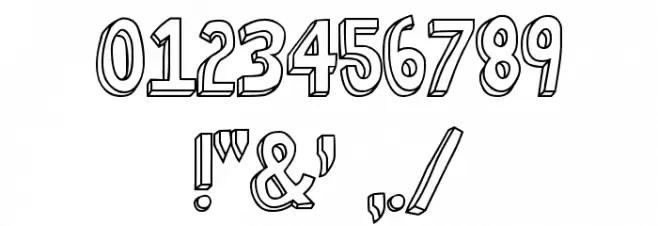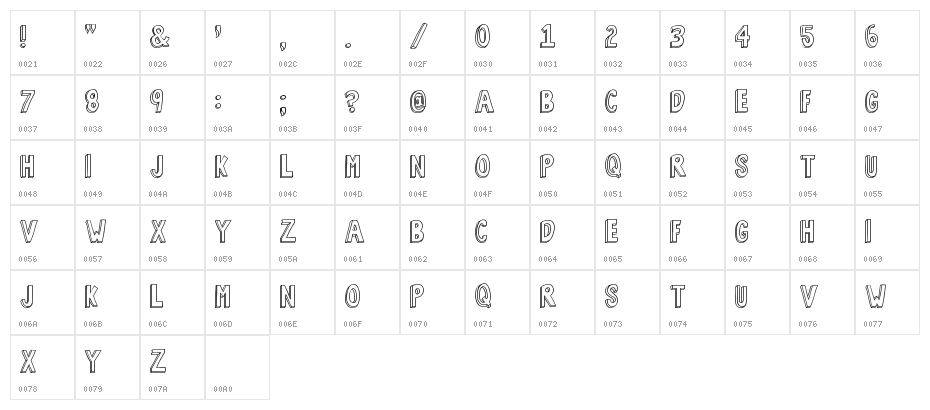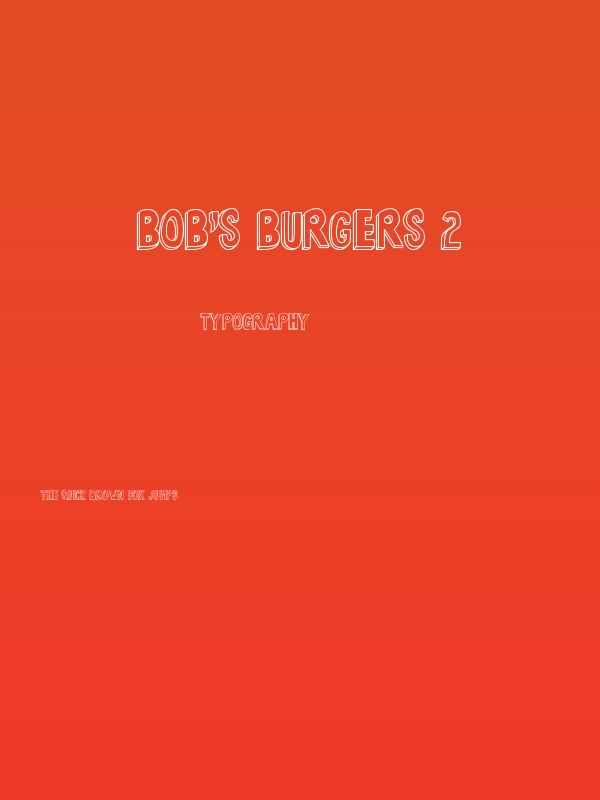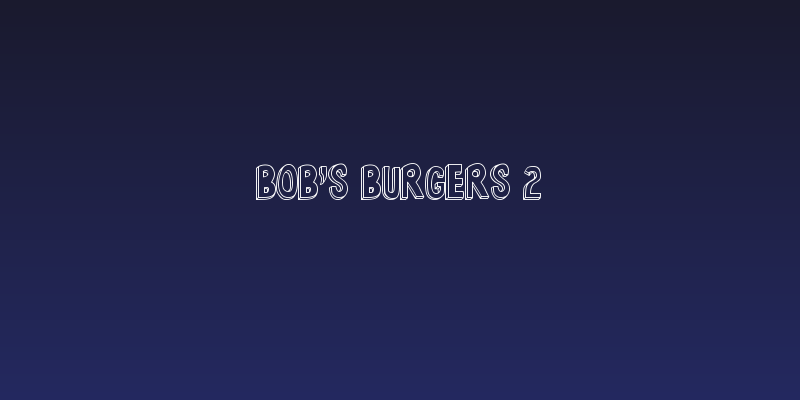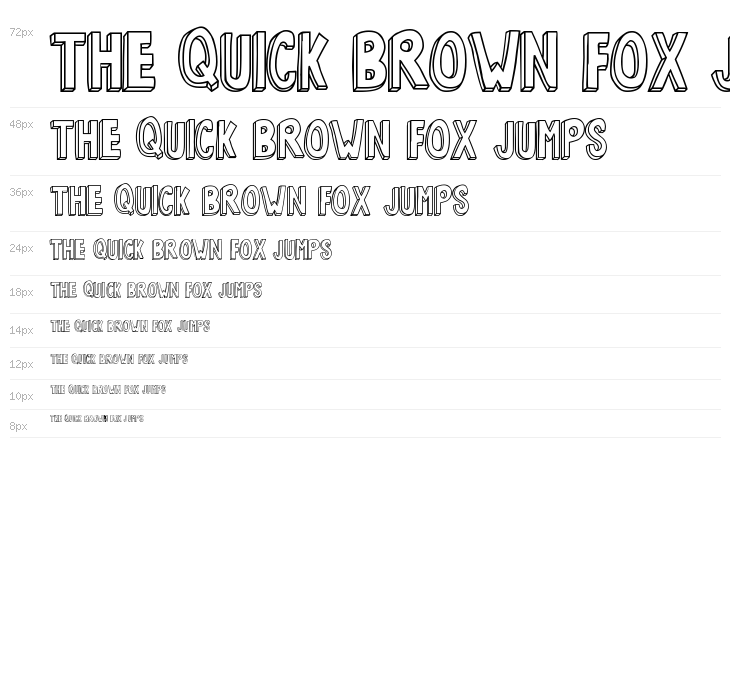
Bob's Burgers 2 Font
Bob's Burgers 2 Description
This font features a bold, three-dimensional design with a playful and cartoonish style. The letters are uppercase and have a shadow effect that gives them depth and a sense of movement. The strokes are thick and consistent, creating a strong visual impact. The numbers and special characters follow the same design principles, maintaining uniformity across the character set. This font is ideal for projects that require a fun and engaging look, such as children's books, posters, or animated series branding.
| Overall Style | Playful, Cartoonish |
| Proposed Projects | Ideal for children's books, animated series branding, and playful posters. |